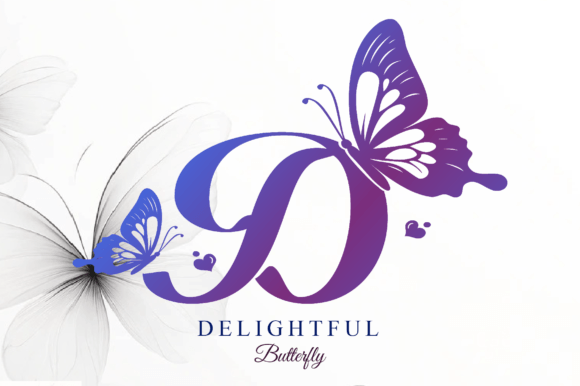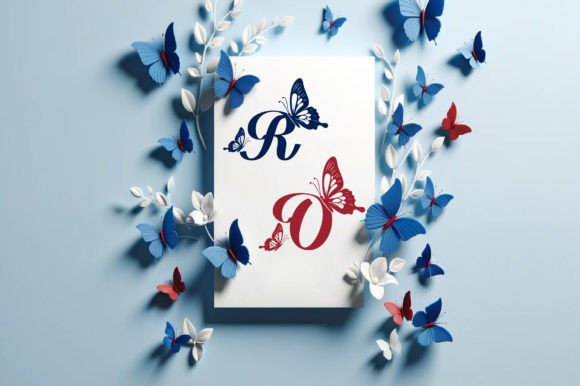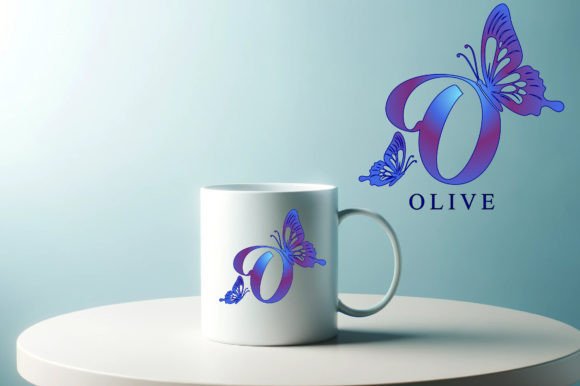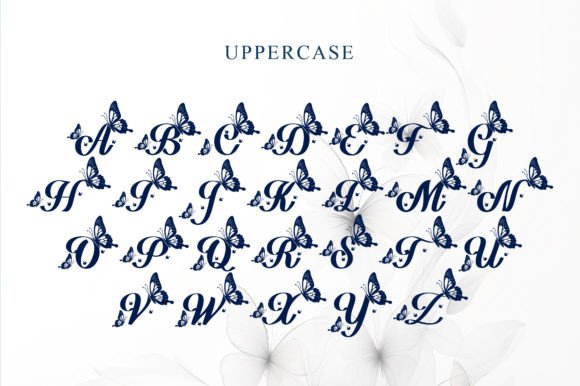
Delightful Butterfly Font
About the Delightful Butterfly Font
Step up your design game with Delightful Butterfly Font, a font that exudes confidence and style. Delightful Butterfly is a decorative font created with a beautiful and elegant touch. It’s perfect for designing wedding cards, mug decorations, banners, and other elegant designs. With its charming butterfly shapes, it adds a delightful and pleasing visual appeal to any project.
Delightful Butterfly’s decorative nature makes it ideal for headlines, short text blocks on invitations or packaging, and even as an accent element in logos. Its elegant charm works exceptionally well for brands focused on beauty, femininity, or celebratory events. However, avoid using it for body text or lengthy paragraphs; its intricate details would hinder readability.
For optimal visual harmony, pair Delightful Butterfly with a clean sans-serif like Helvetica Neue for a modern contrast, or a classic serif such as Garamond for a more traditional feel. A simple script font could also add a touch of refined sophistication.
The font exudes a playful yet elegant personality. Its delicate forms convey a sense of whimsy and celebration, making it unsuitable for projects requiring seriousness or a minimalist aesthetic.
Delightful Butterfly Font Usage Examples
Delightful Butterfly Font Example